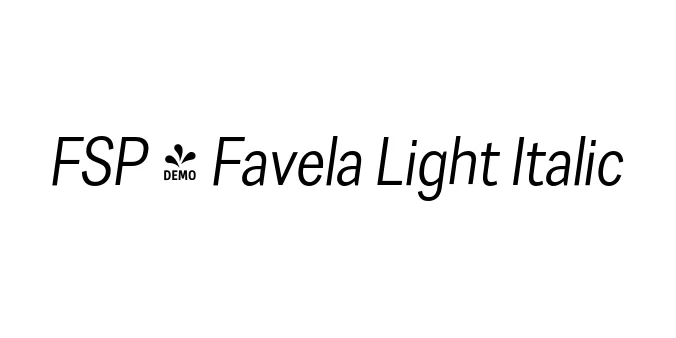
FSP - Favela Light Italic
Designed by Maciej Majewski
FSP - Favela Light Italic is a sophisticated geometric sans-serif typeface that stands out for its modern construction and unique stylistic character. Part of a comprehensive 18-weight family, the Light Italic variant provides a delicate, slanted elegance that maintains high legibility while adding a refined touch to any typographic composition.
Designed by Maciej Majewski, this font family is characterized by wide apertures, a generous x-height, and a rhythmic flow inspired by urban architecture. The italic version specifically captures a sense of motion and fluid geometry, making it an excellent choice for designers seeking a balance between structural rigidity and organic movement.
FSP - Favela Light Italic Best Uses
Excellent for pull quotes, captions, and secondary headings in digital and print magazines.
Provides a high-end, contemporary feel for luxury, tech, or creative brand identities.
Ideal for UI accents, navigation links, and emphasis in minimalist web interfaces.